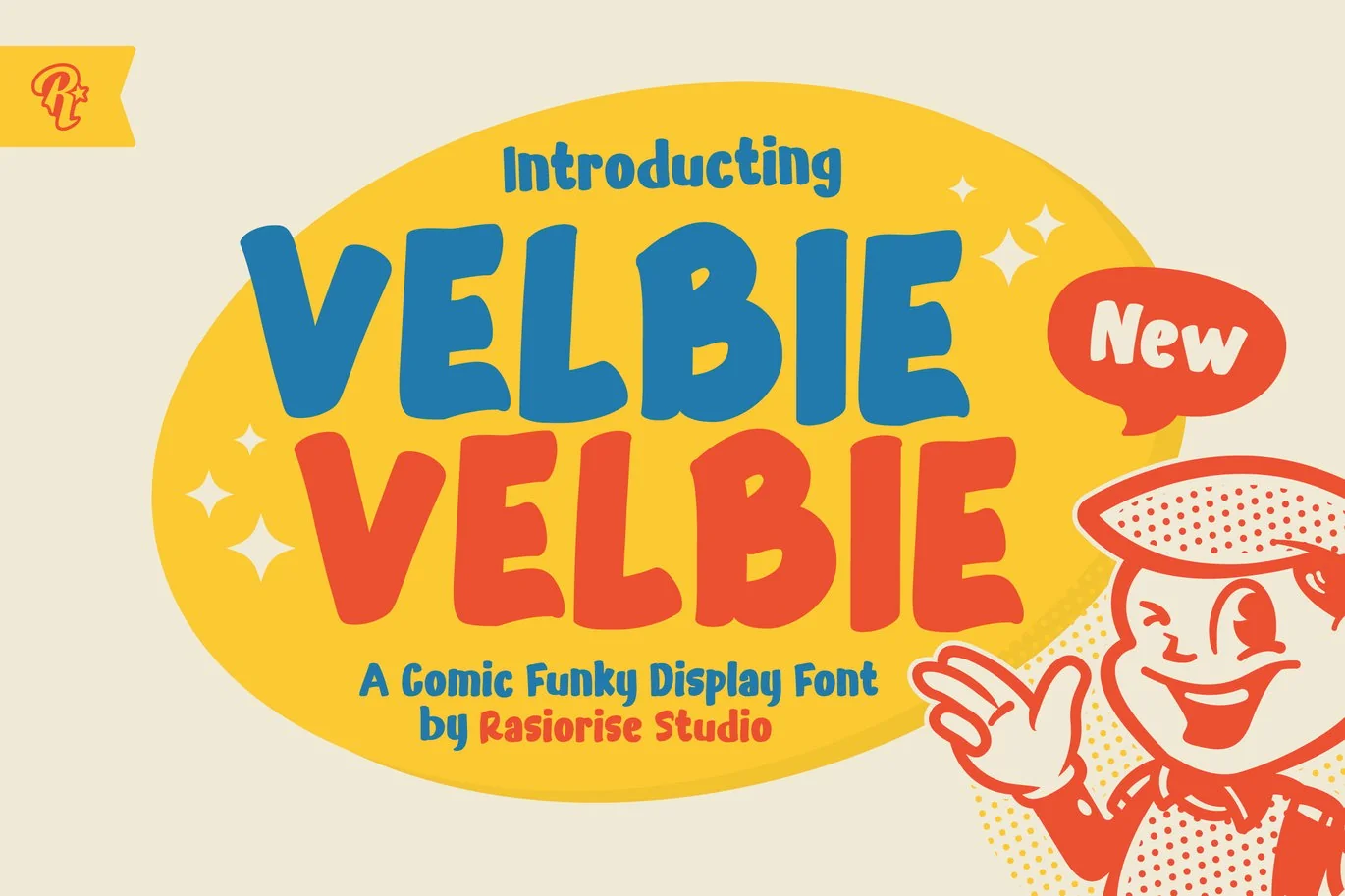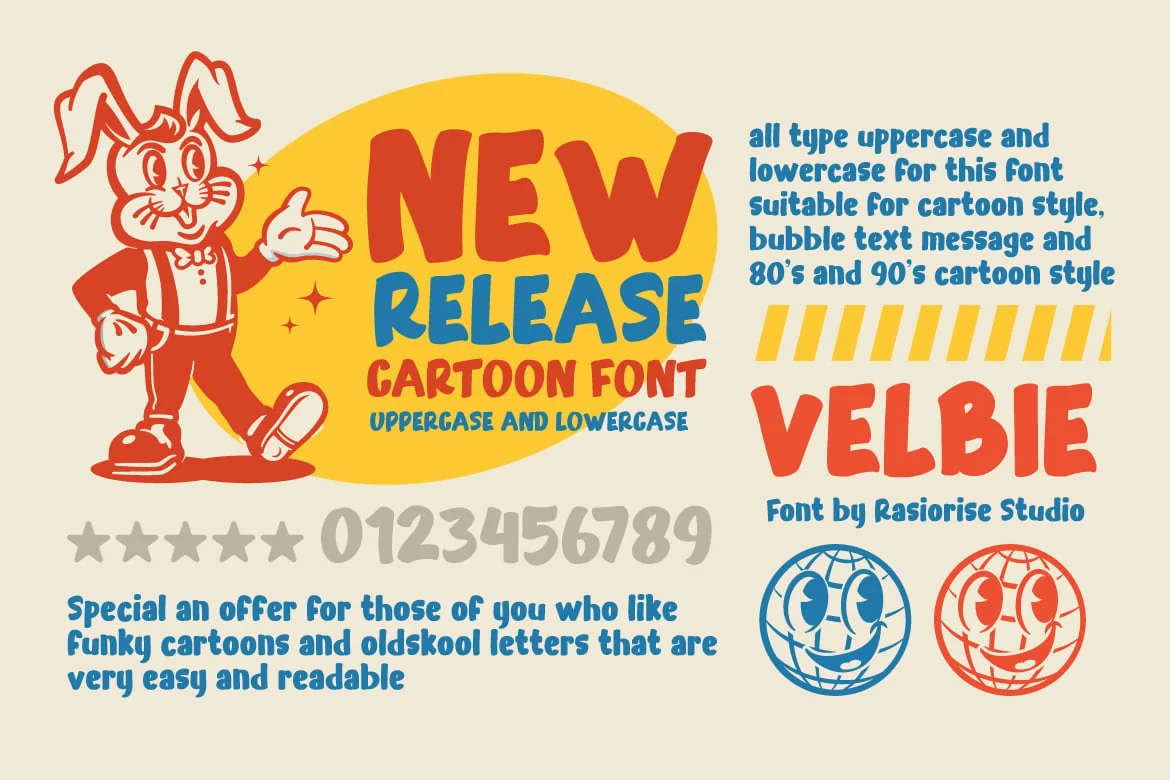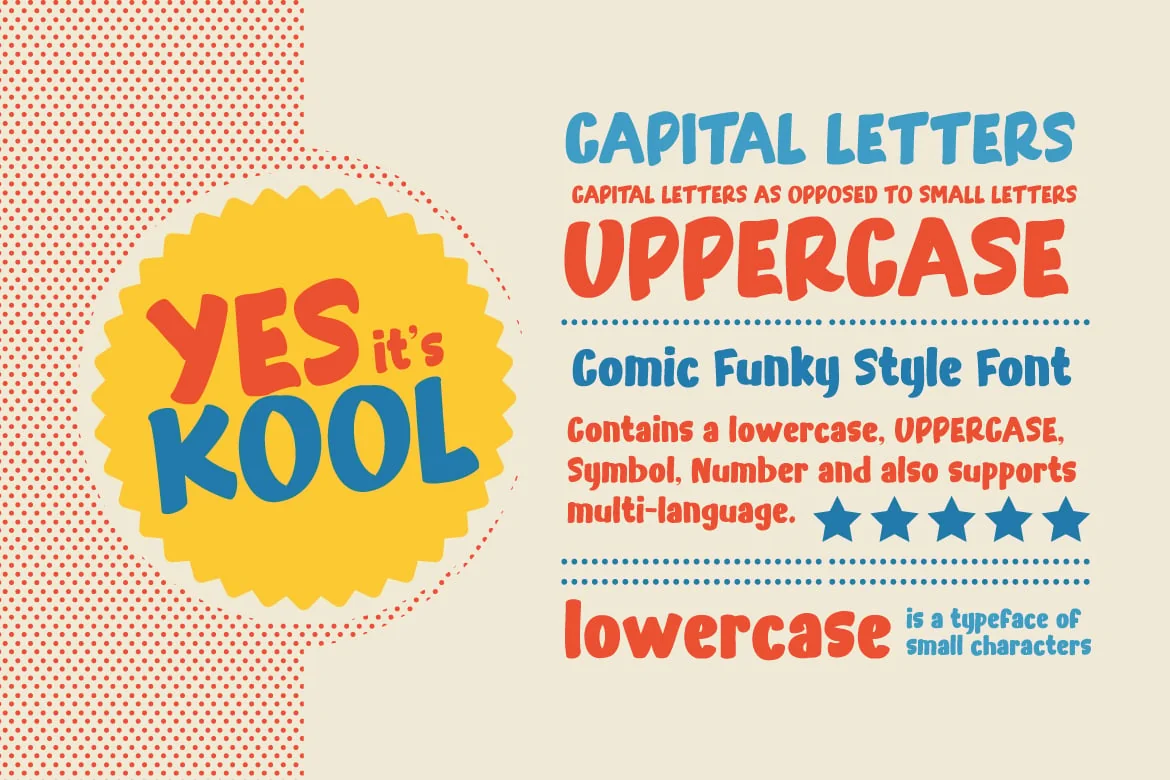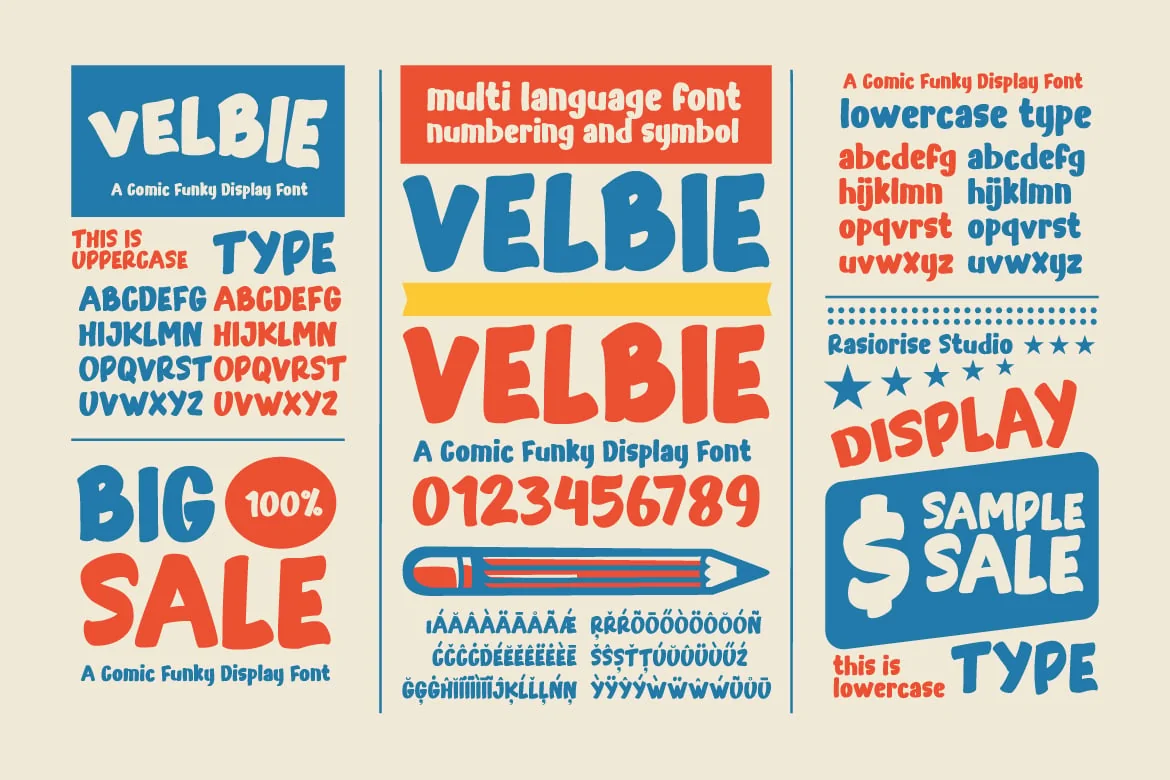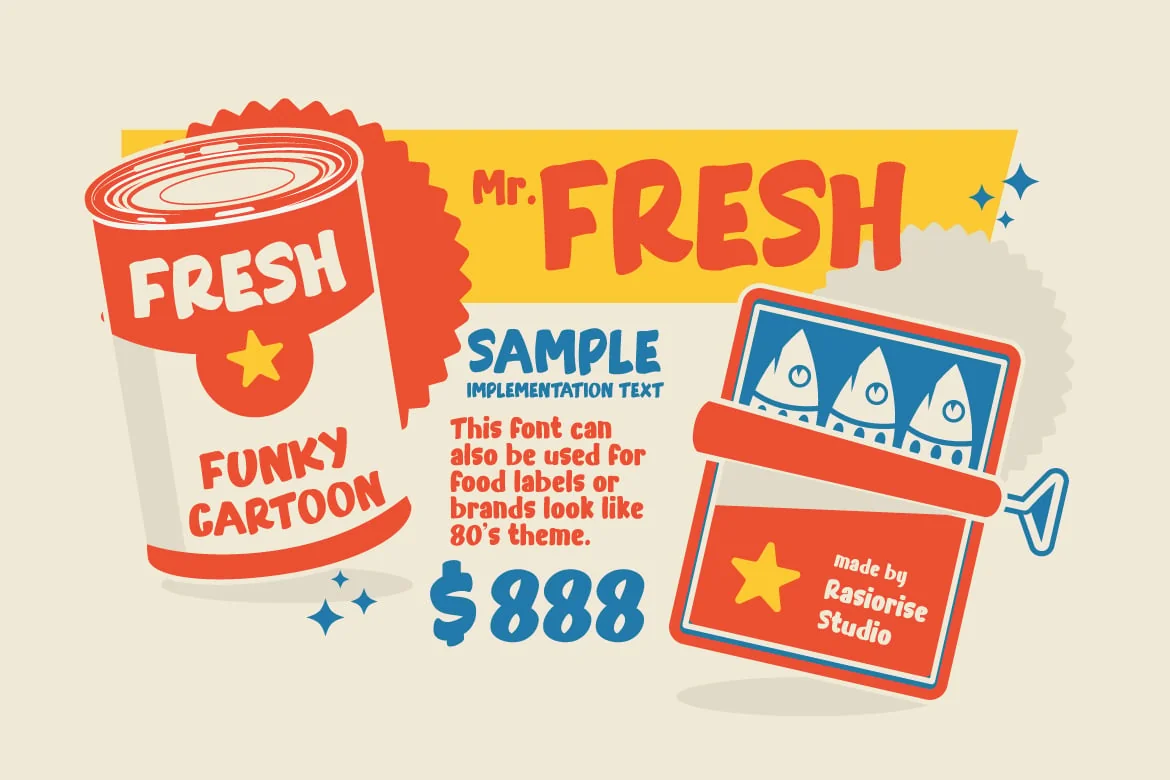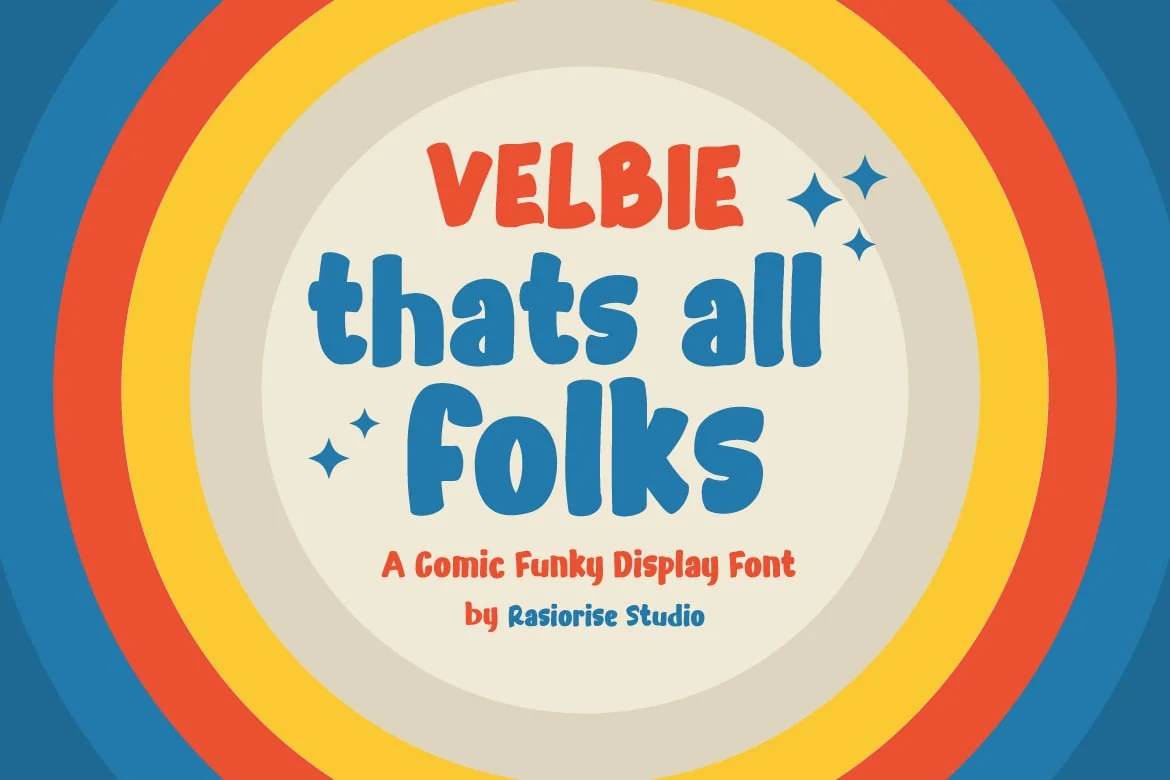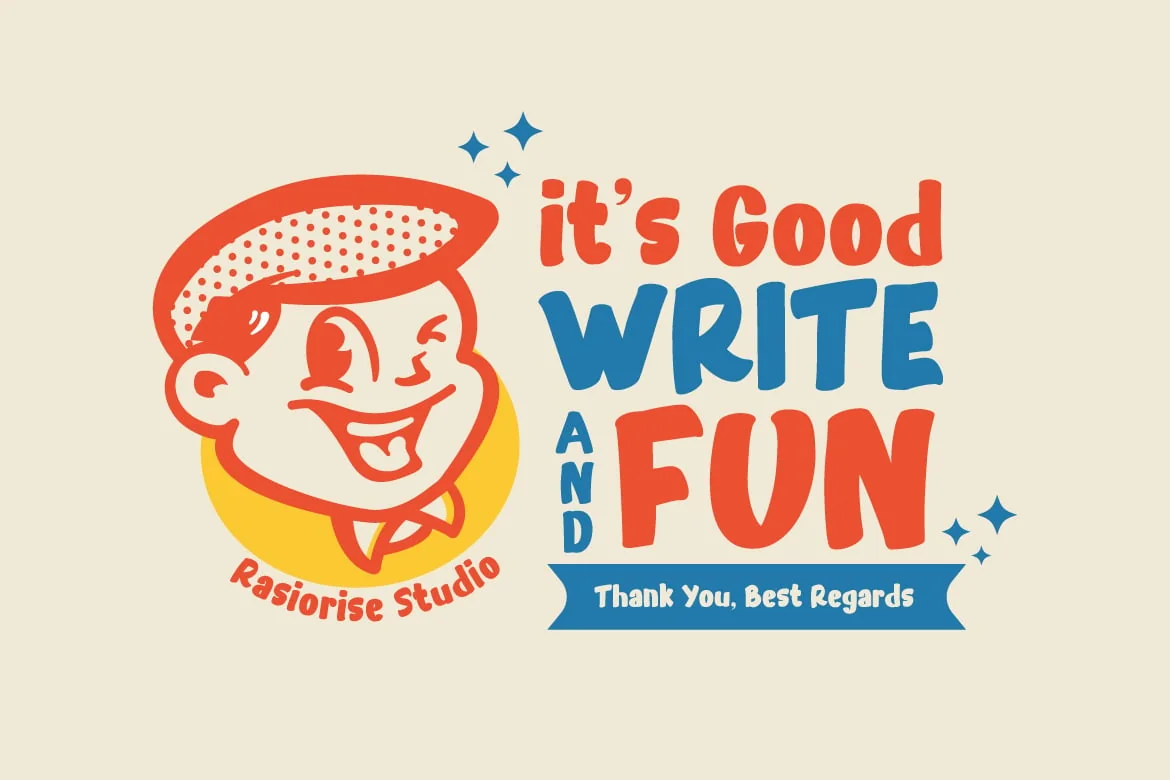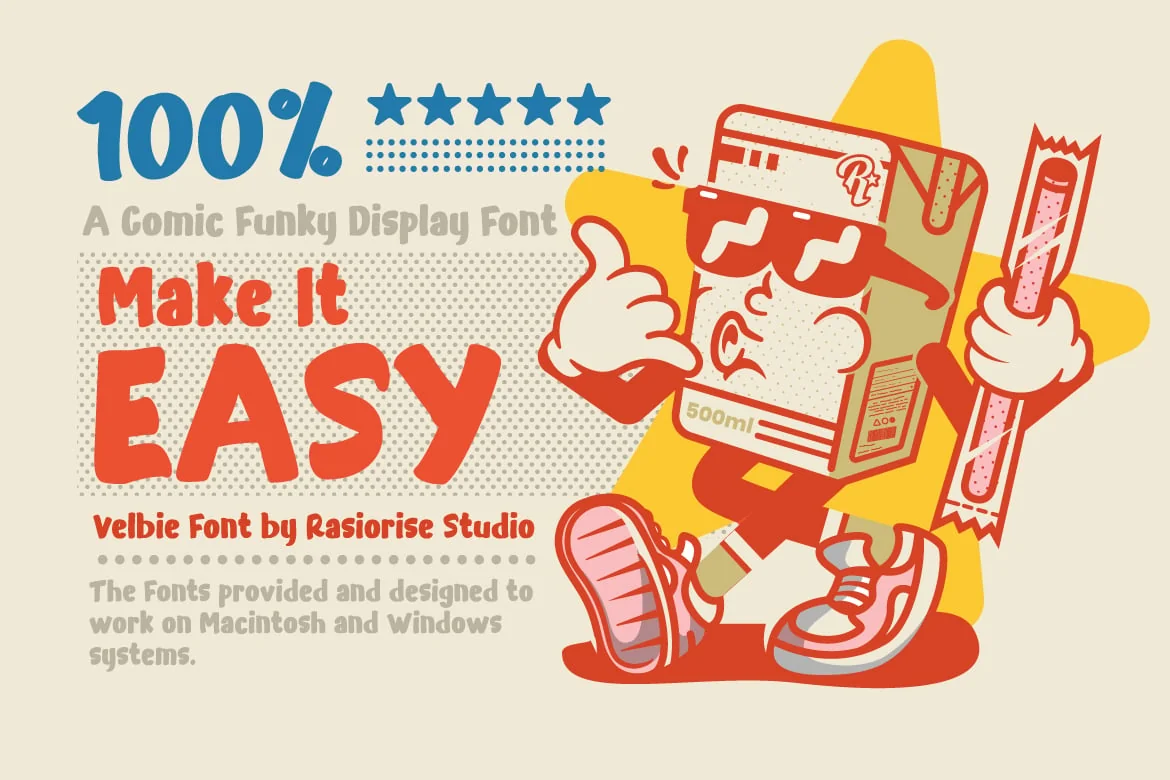
Velbie – Cartoon Display Font
Velbie has been released for those of you who are looking for a very creative retro/funky cartoon font, you can explore your creativity by creating a simple retro/funky cartoon text. We will give you the best choice.
Velbie – Cartoon Display Fonts
The font is inspired by the retro and funky cartoon style. very suitable for Logotype, Book Cover, Children Book, Comic Text, Poster, Merchandise, Packaging Label, Speech bubble and much more